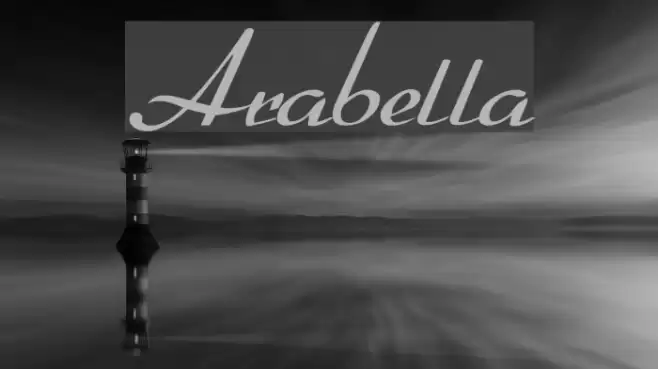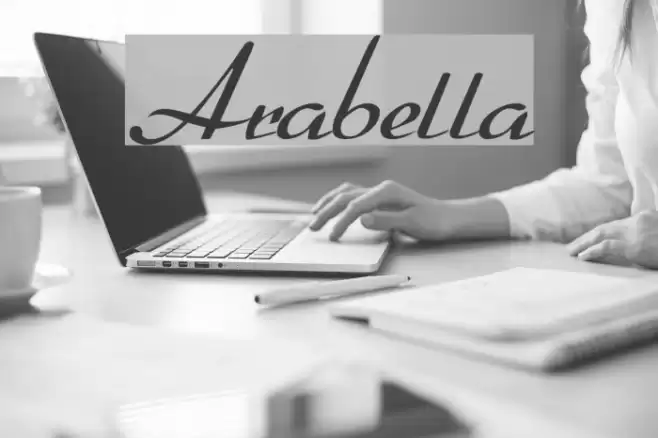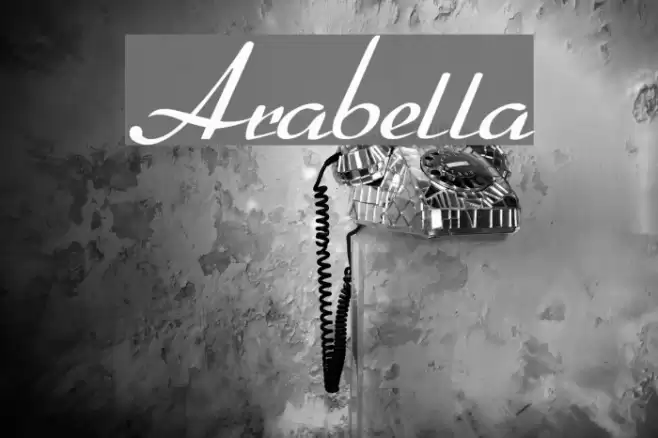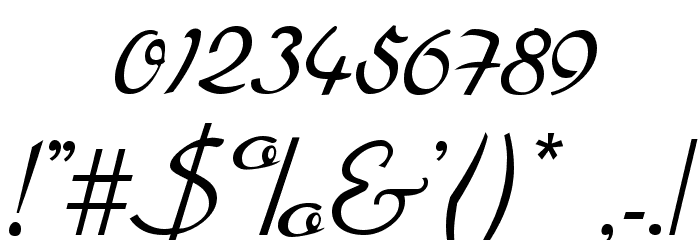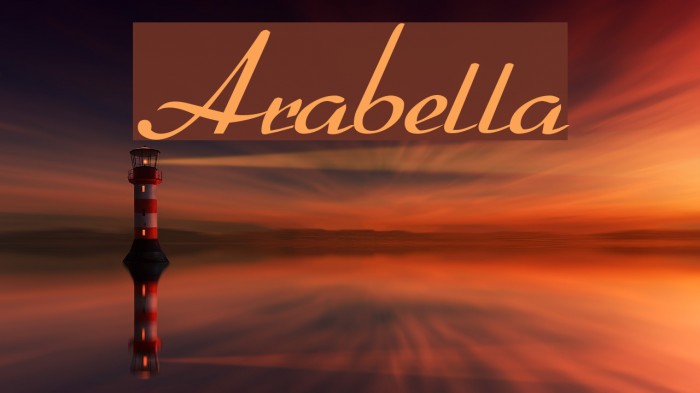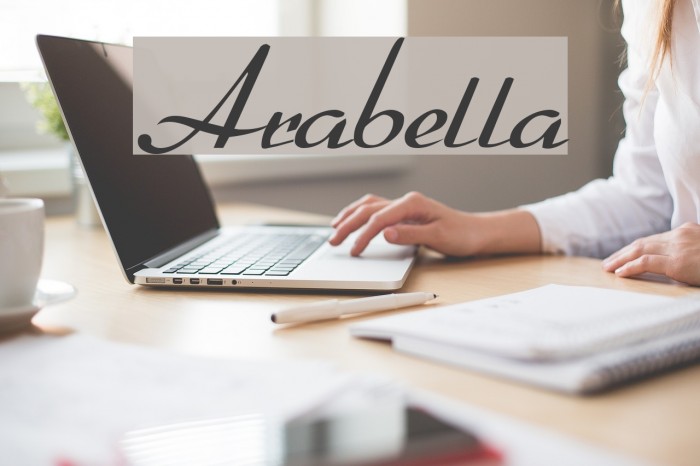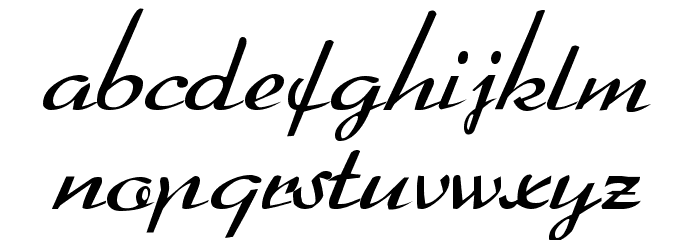
Arabella Font
Arabella Description
This elegant script font features a flowing, cursive style with smooth, connected strokes. The uppercase letters are ornate and slightly slanted, providing a sense of movement and grace. The lowercase letters maintain a consistent fluidity, enhancing readability while retaining a sophisticated appearance. Numbers and special characters are designed with the same attention to detail, ensuring a cohesive look across all text elements. This font is ideal for projects that require a touch of elegance and formality, such as invitations, branding, and decorative headings.
An elegant, flowing script font with smooth, connected strokes from Uncategorized fonts.
- ( Fonts by Dieter Steffmann FREE )
- Proposed Projects: Ideal for wedding invitations, elegant branding, decorative headings, and formal event materials.
- Overall Style: Elegant, Formal
- Use Case: Headlines, Invitations, Branding